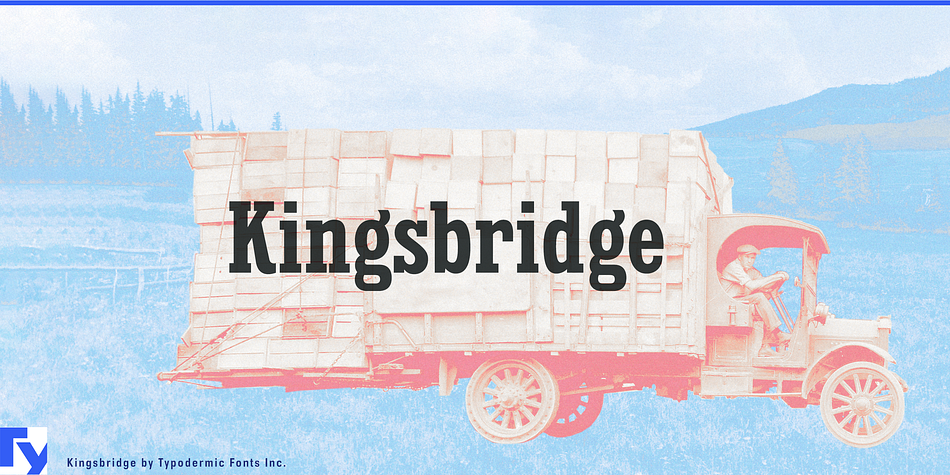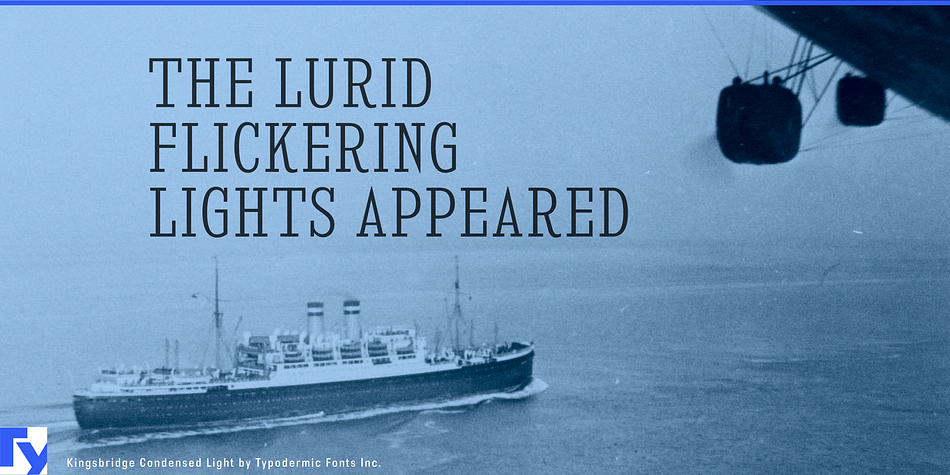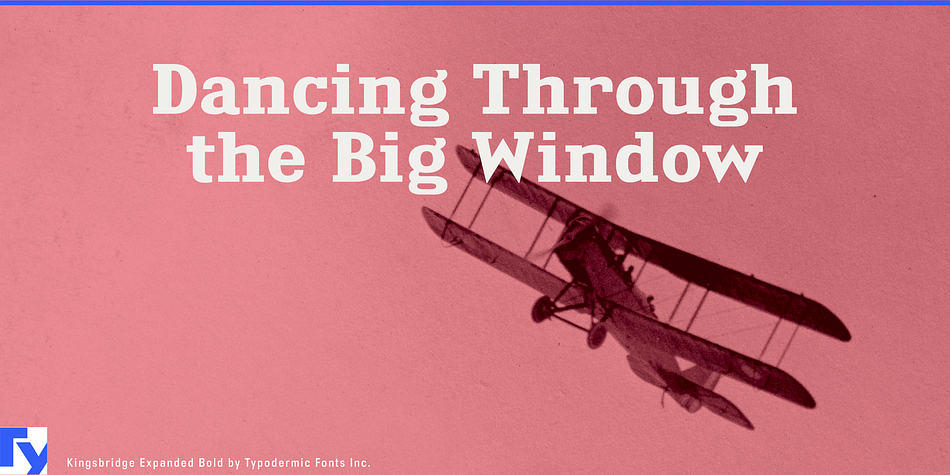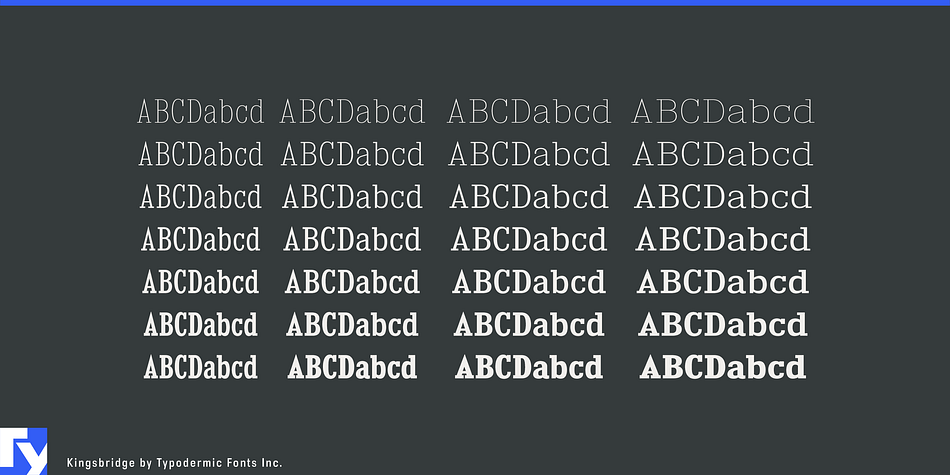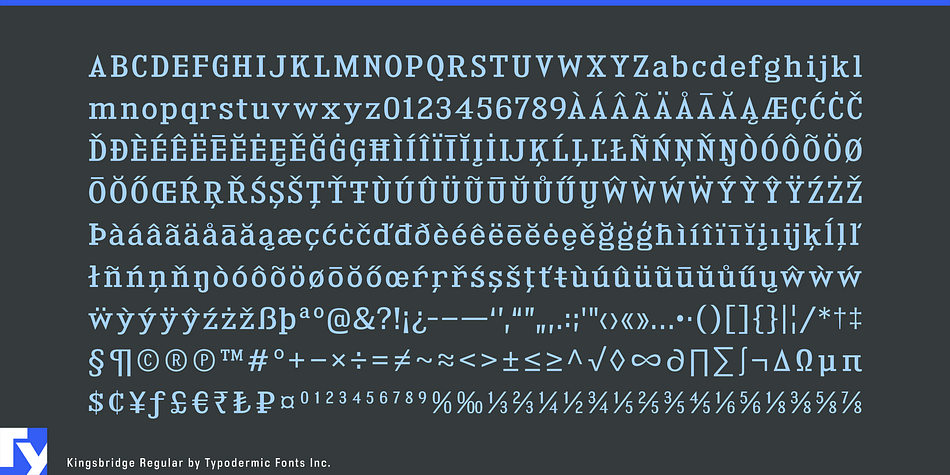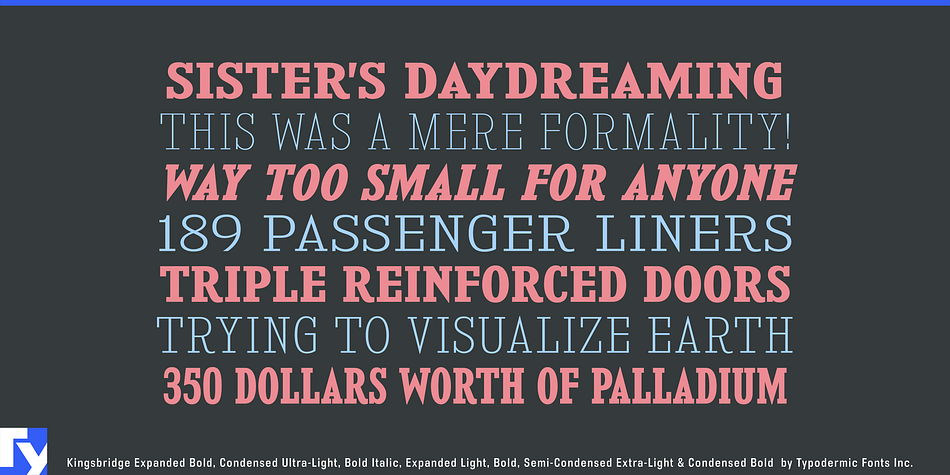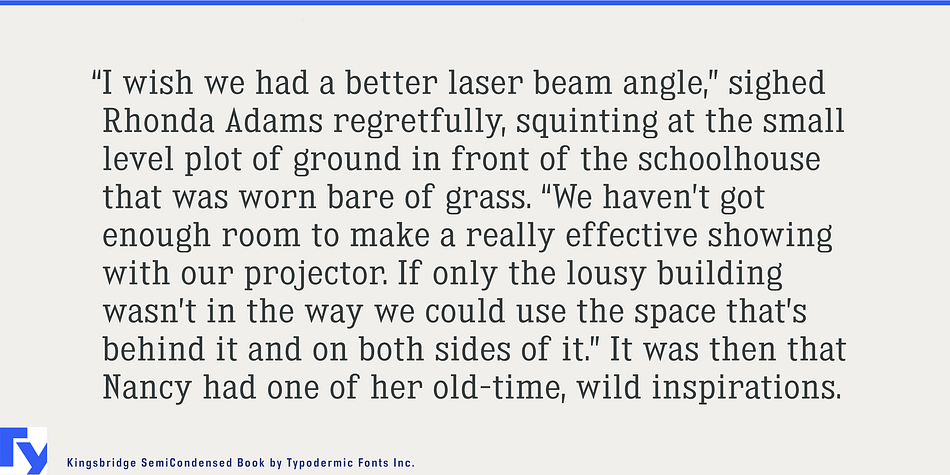
Kingsbridge is a slab serif font family. This typeface has fifty-six styles and was published by Typodermic Fonts Inc.
Kingsbridge is a slab-serif typeface family with sharp points on the A, M, N, V and W.